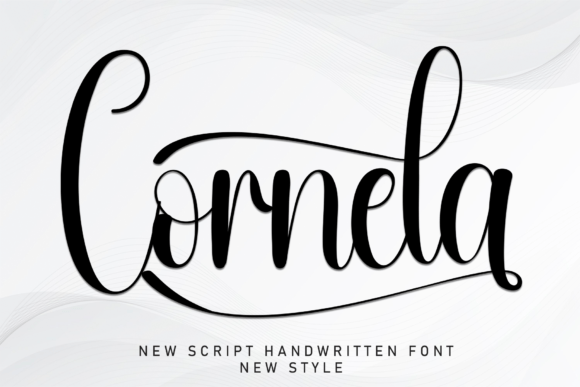
Introducing Cornela Font, the enchanting script font that will add a touch of sweetness and playfulness to your designs. Created by the gifted William Jhordy, this font exudes a friendly and inviting charm that is sure to capture hearts.
With its elegant curves and playful strokes, Cornela Font is perfect for adding a personal touch to wedding invitations, greeting cards, posters, flyers, social media posts, and any other project that calls for a touch of whimsy. Its versatility extends to branding, logos, and packaging, making it an excellent choice for businesses looking to create a lasting impression.
Embrace the joyous spirit of Cornela Font and let your creativity soar. Its captivating charm will transform your designs into works of art, leaving a lasting impression on your audience. Dive into the world of Cornela Font and discover the endless possibilities it holds.